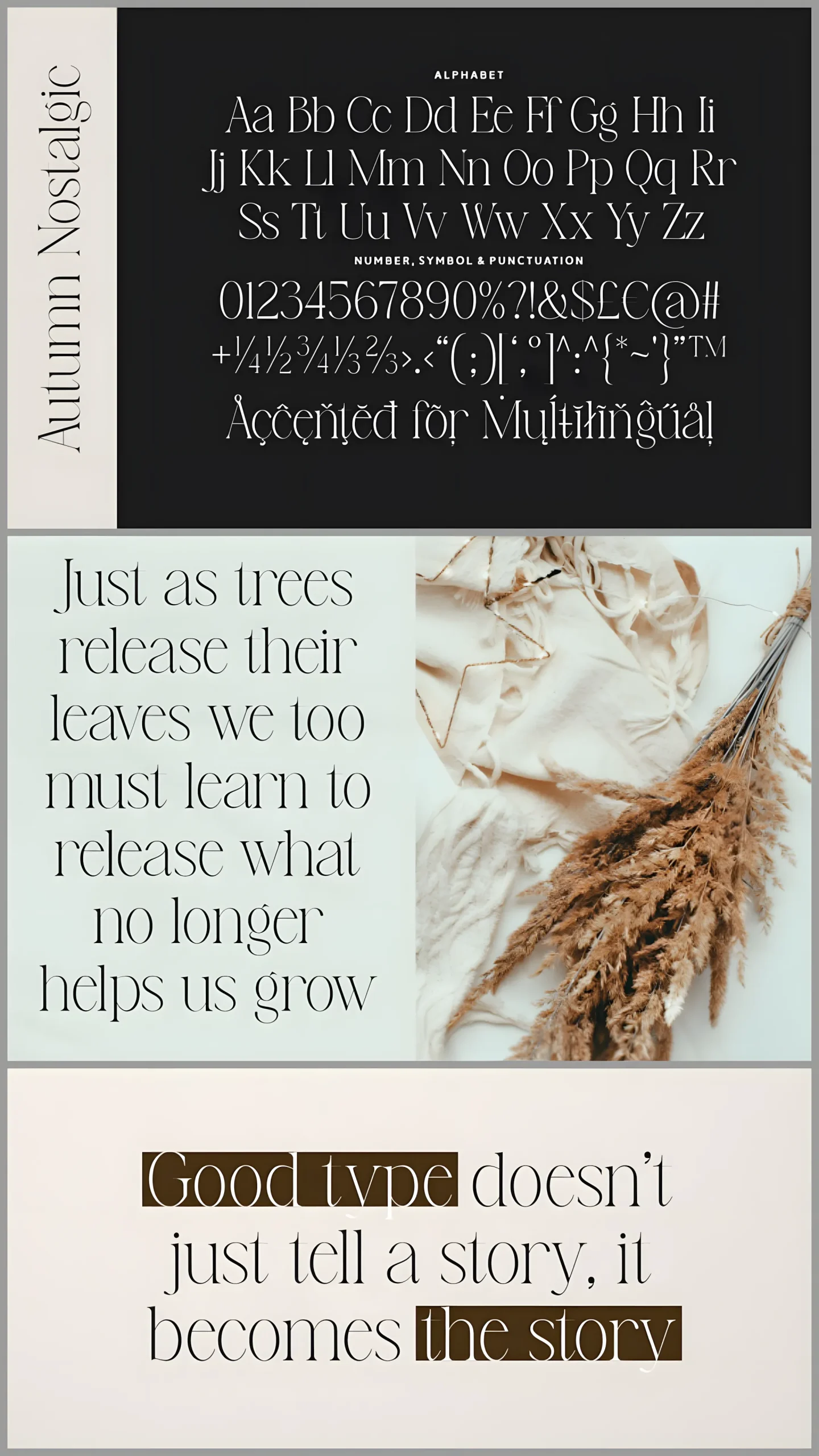
A Nice Serif Font with a Touch of Old-School Warmth and Today’s Style
Autumn Nostalgic is a serif font made with care, mixing old romance with a modern feel. Taking cues from classic magazine fonts but softened with today's shapes, it has a quiet confidence that feels both familiar and new.
With its strong lines, tall letters, and smooth curves, Autumn Nostalgic sends a message of class without being over the top. Each letter feels on purpose, balanced, and full of feeling, making it great for designs where how it feels is just as important as how easy it is to read.
There's a warmth in every letter, a hint of old times that brings to mind old fashion magazines, handwritten letters, and classic visual stories. But it's still crisp and up-to-date, so it works great online and on paper.
Autumn Nostalgic shines where you want things to feel fancy but not fake. It makes fashion magazines look better, gives branding more personality, and adds lasting romance to wedding invites. Seasonal ads, fancy packaging, and lifestyle images can all use its calm, movie-like vibe.
This font does more than just show words—it sets the vibe. It’s soft but expressive, polished but emotional. Autumn Nostalgic turns text into a feeling, letting stories play out with a calm strength and lasting beauty.